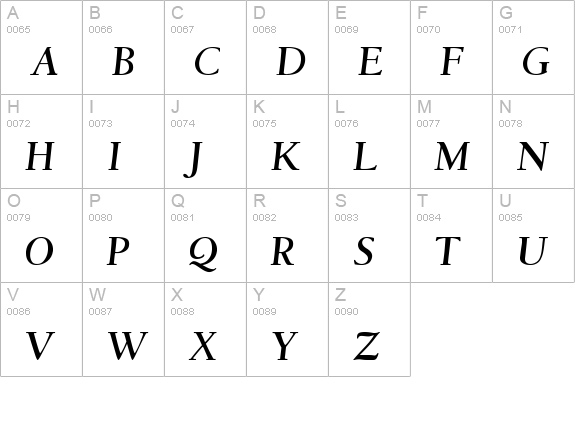
HeathervilleOldStyle Font Details
HeathervilleOldStyle font is a timeless and elegant typeface that exudes a sense of nostalgia and sophistication. With its classic and refined letterforms, this font captures the essence of vintage typography, making it perfect for projects that require a touch of old-world charm. Characterized by its delicate serifs and graceful curves, HeathervilleOldStyle font is reminiscent of traditional calligraphy, adding a touch of elegance and grace to any design. Whether it's used for wedding invitations, branding materials, or editorial layouts, this font effortlessly elevates the overall aesthetic and creates a sense of timeless beauty. One of the best things about HeathervilleOldStyle font is that it is available for free. Yes, you heard it right! This exquisite typeface can be freely downloaded at FontsMarket.com, allowing designers and creatives to access its beauty without any cost. It's a fantastic opportunity to enhance your projects with a high-quality font that brings a touch of sophistication and vintage allure. So, if you're looking for a font that combines the charm of old-style typography with modern accessibility, look no further than HeathervilleOldStyle font. Download it today from FontsMarket.com and let its classic elegance transform your designs into works of art.